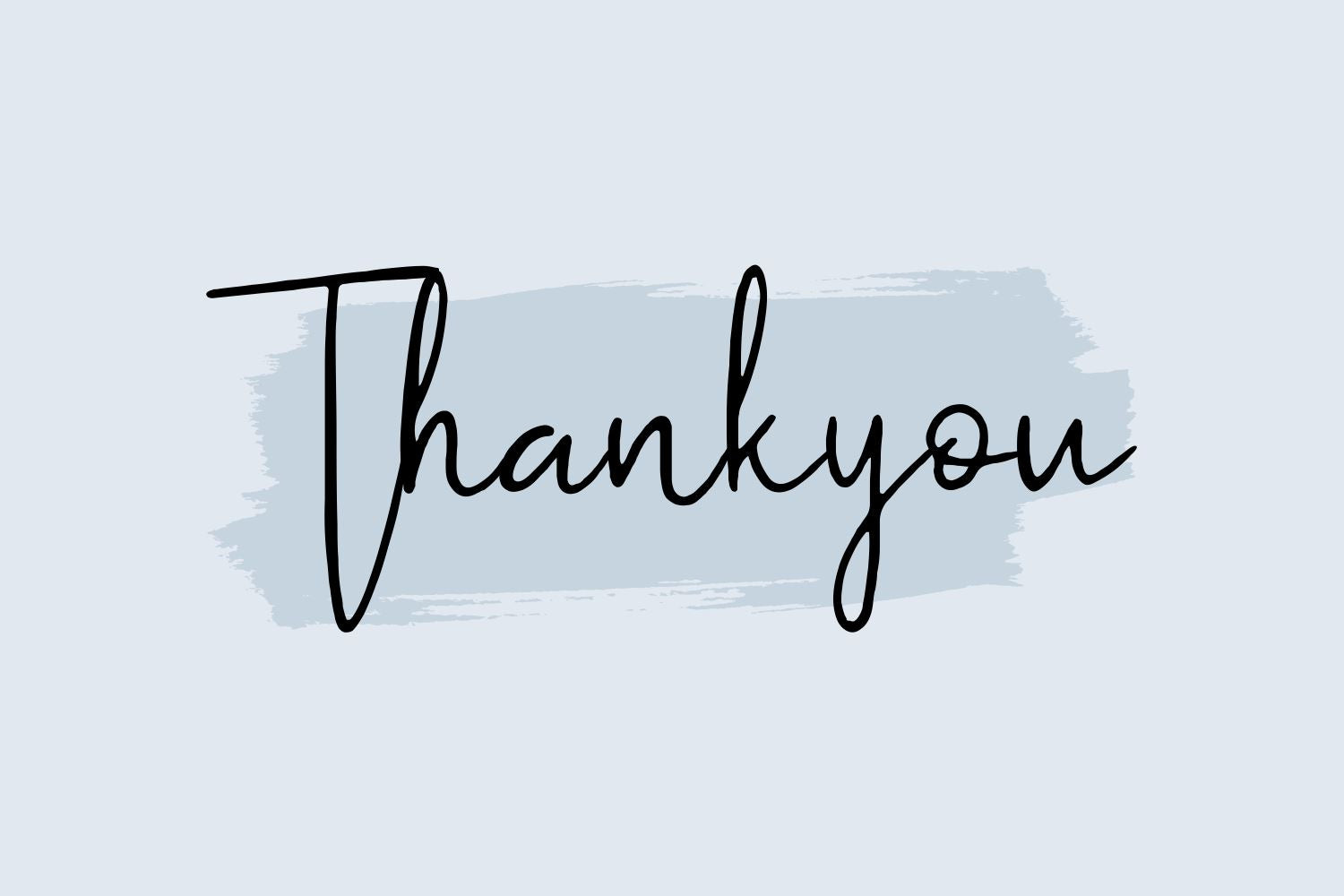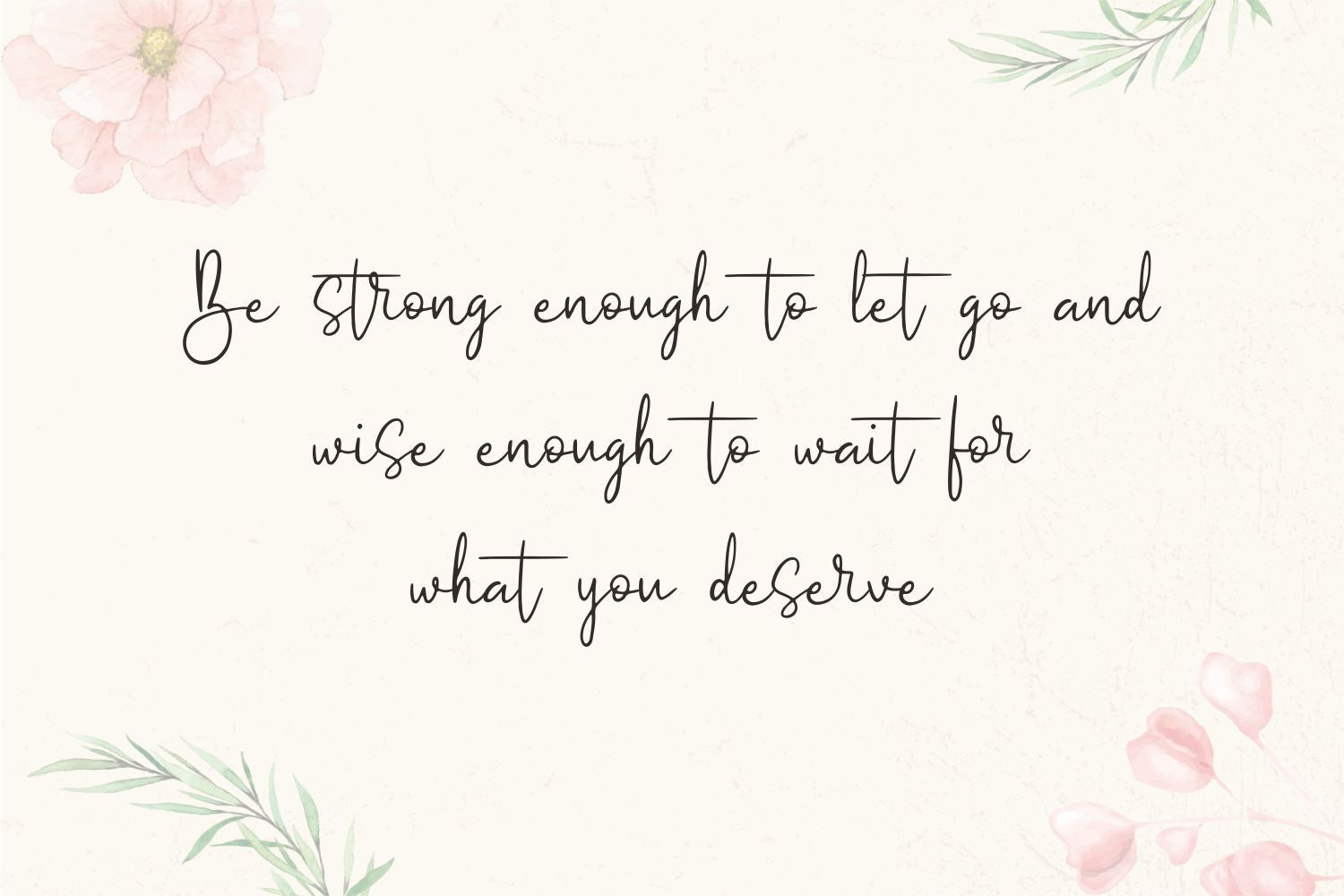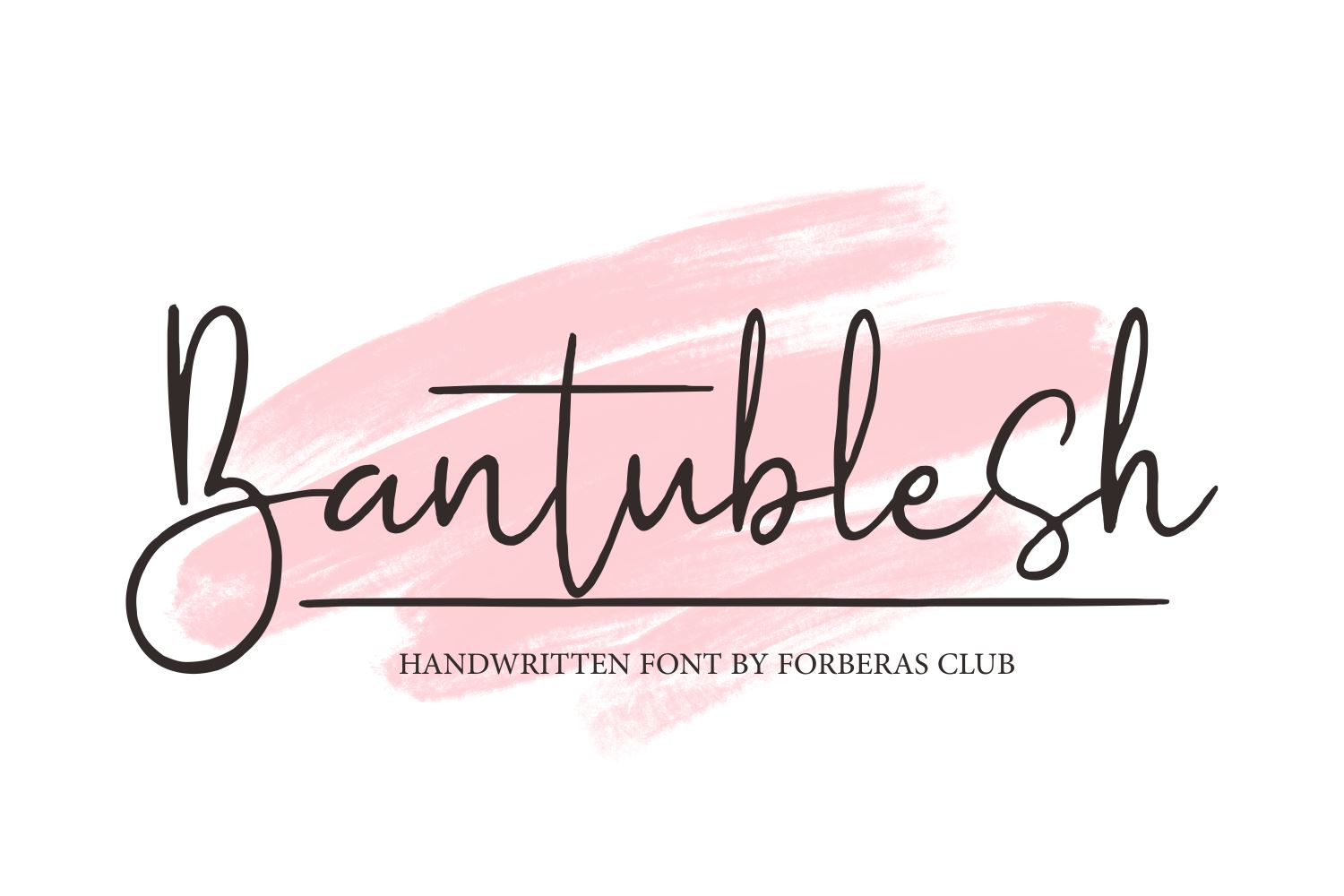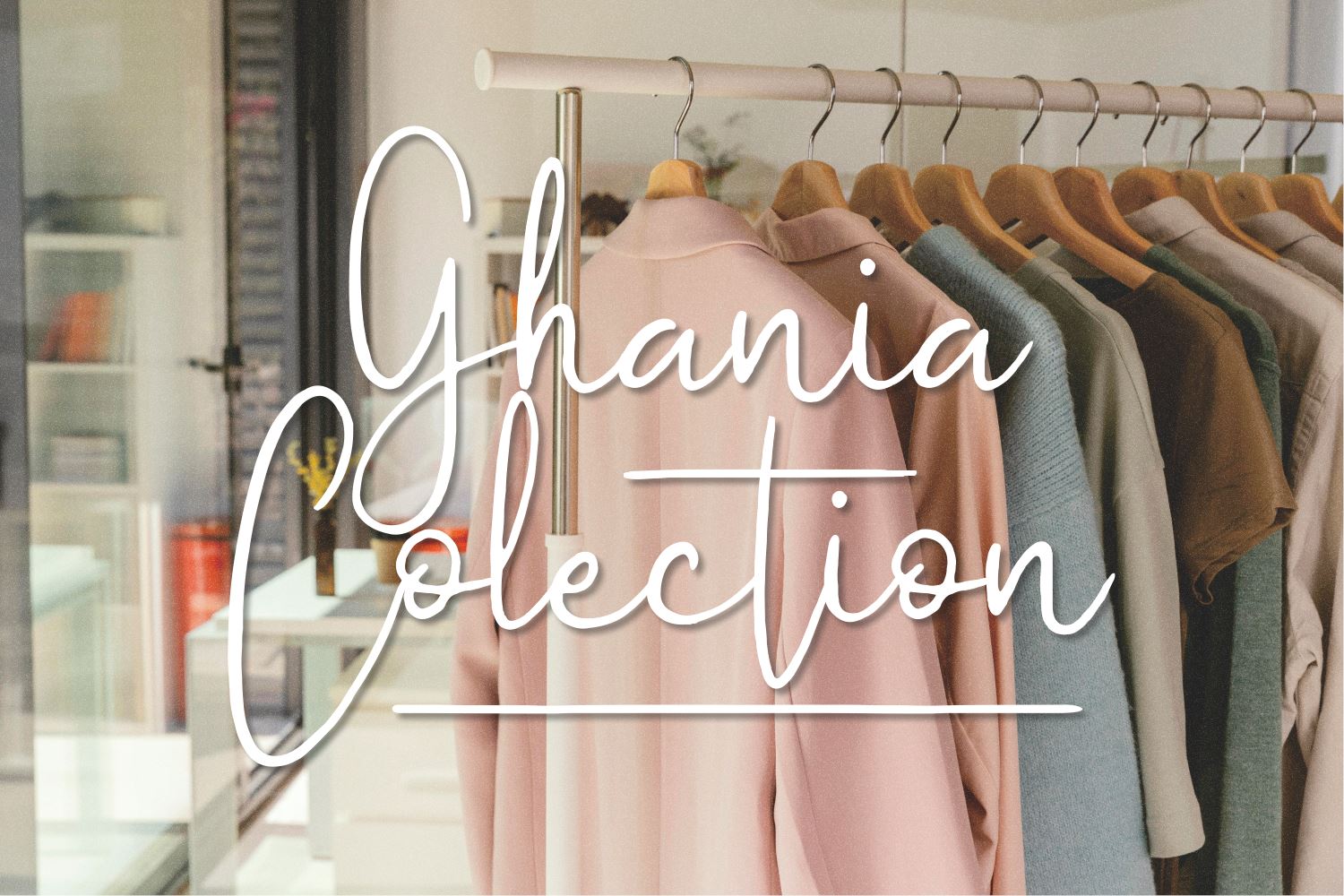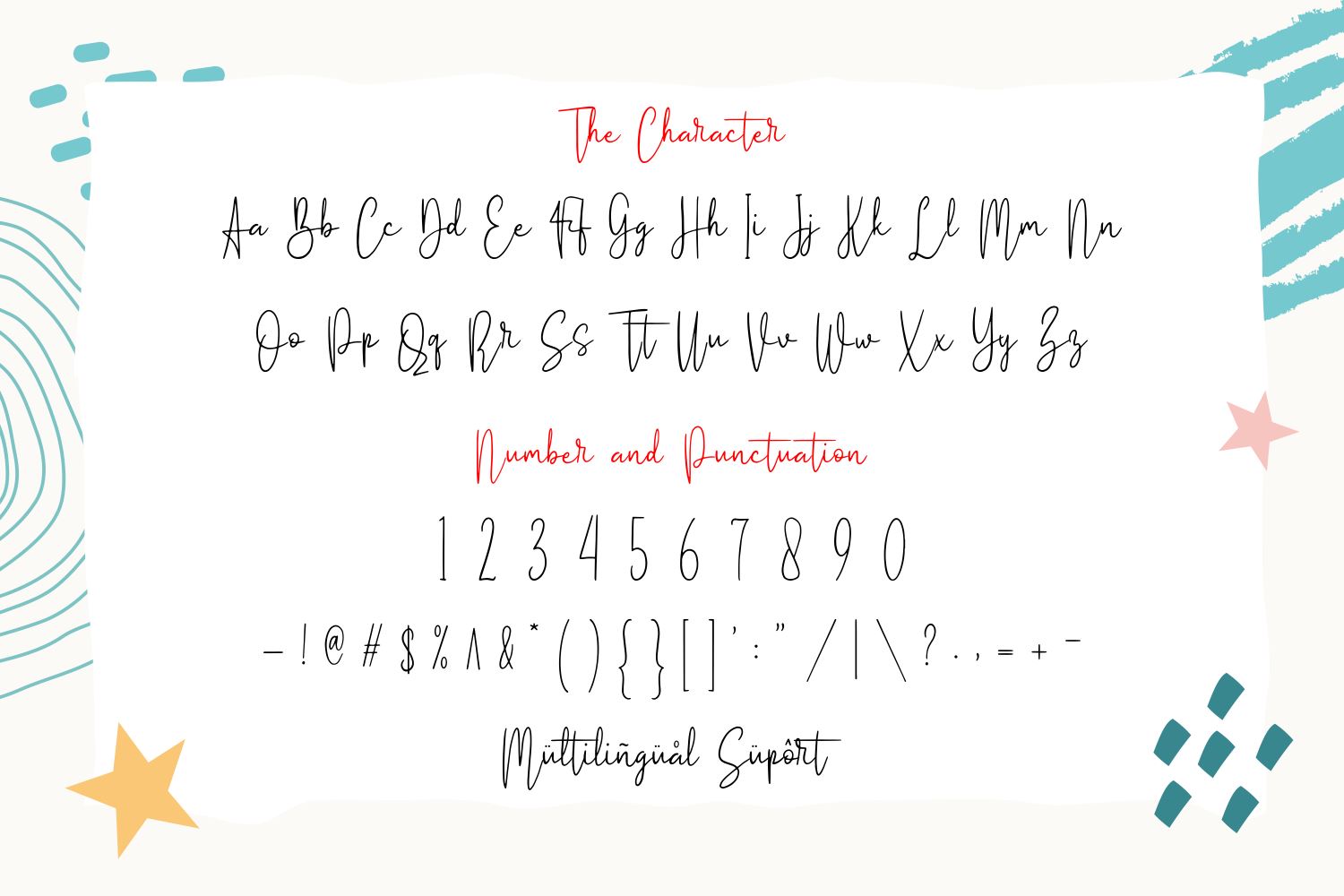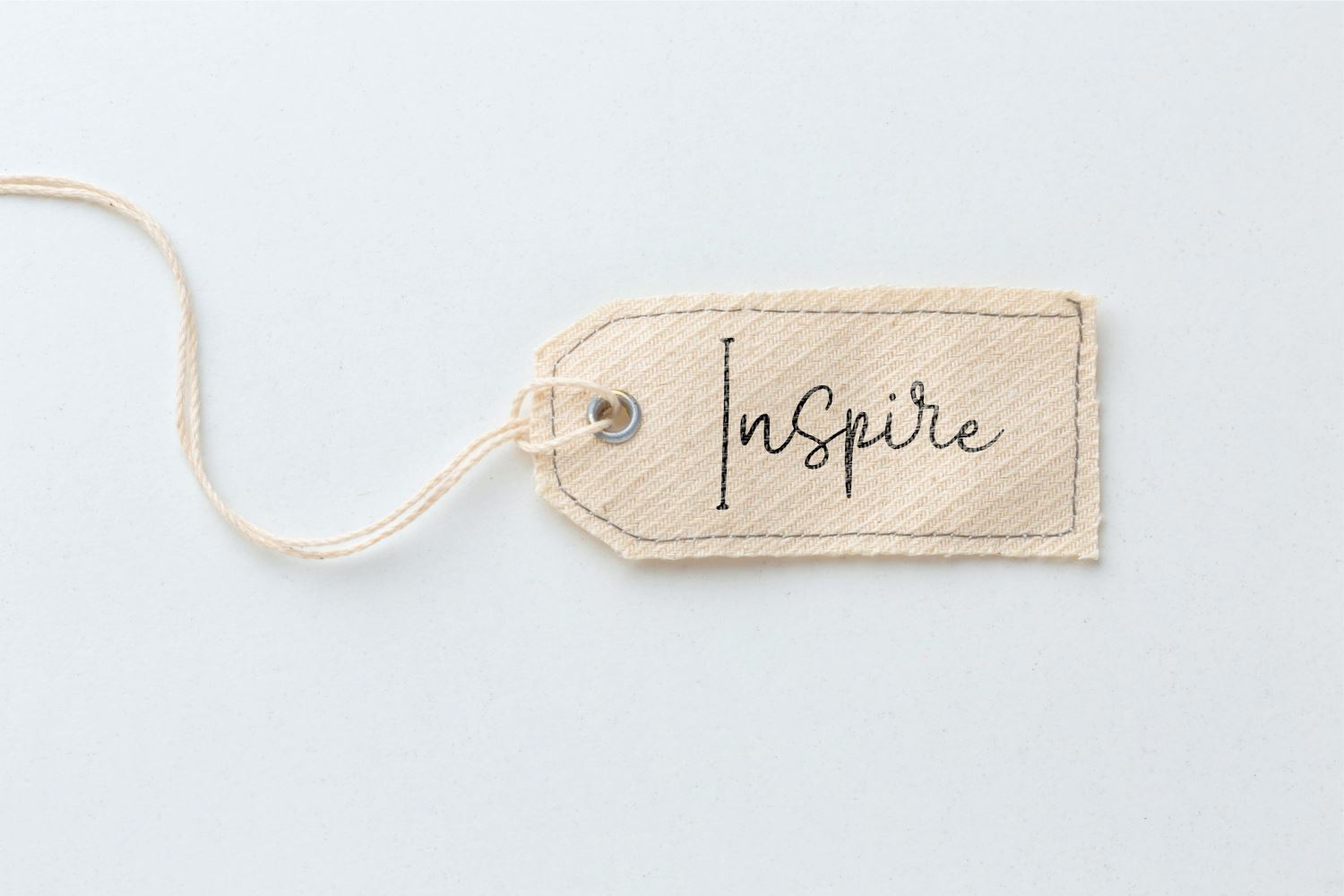
Bantublesh
About Bantublesh
Introducing Bantublesh Font by Forberas Club Bantublesh is a Modern Handwritten Font. Bantublesh perfect for book cover, product packaging, branding project, megazine, social media, kisd book fonts, or just used to express words above the background. This font includes TTF and OTF, This font also multilingual support.